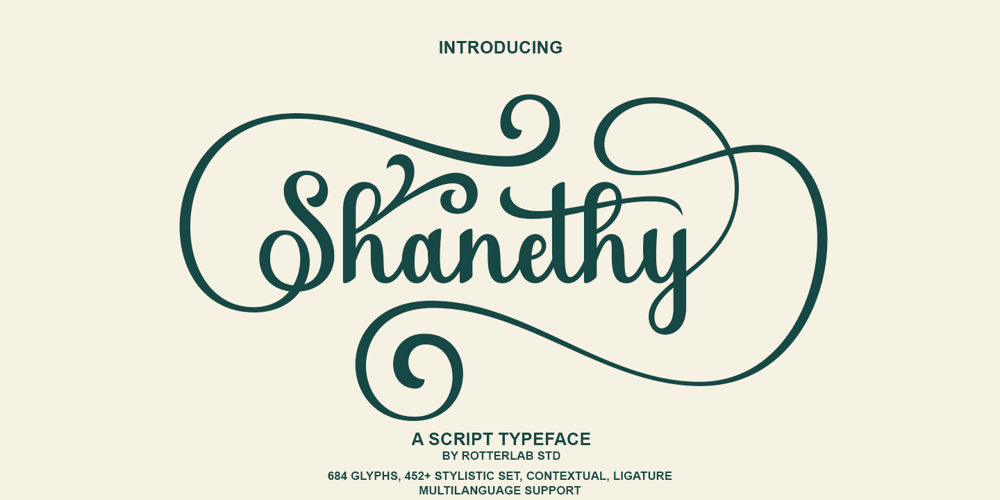
Shanethy Script
Shanethy Script font
Shanethy Script Font Family was designed by Sidiq Fahmi and published by Rotterlab Studio. Shanethy Script contains 4 styles and family package options. Shanethy Script is a romantic typeface. a bold, elegant & fun vintage script font. Can be used for many purposes such as logos, wedding invitations, t-shirts, Apparel, letterhead, signage, news, product packaging, print quotes, posters, magazines, badges etc.Shanethy Script features 684+ glyphs and 453 alternative characters, ligatures, swashes and multiple language support.Thank You…